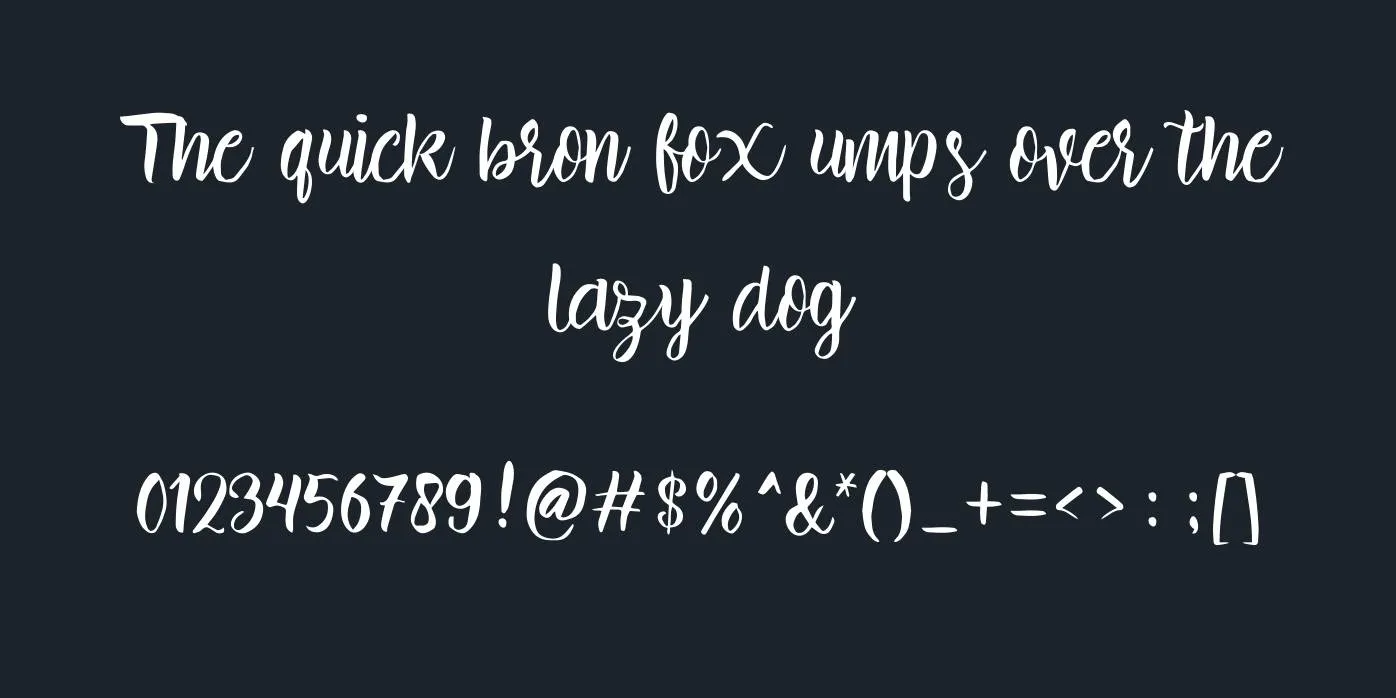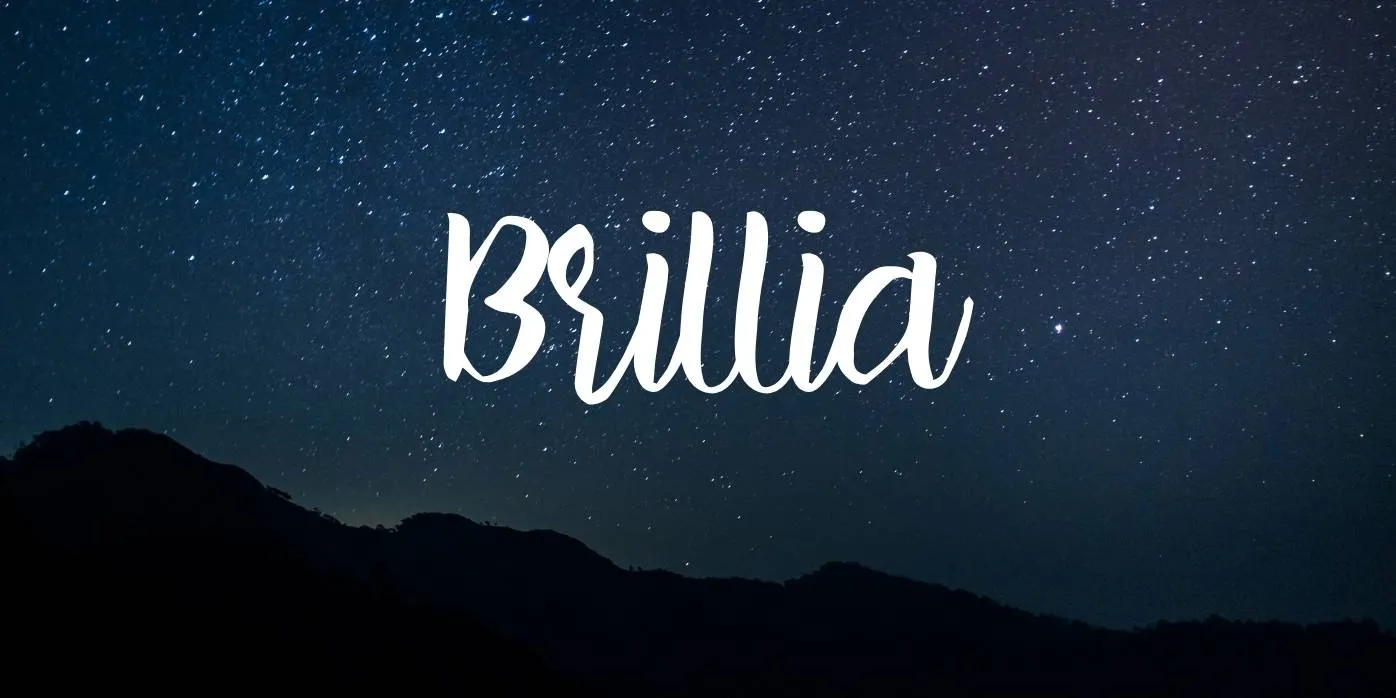
Brillia Font
The Brillia Font has a unique texture that belongs to the Script Font family. The popular Queentype foundry designed this typeface. The designer of this Script typeface worked in Queentype company. The main benefit of using this typeface is it is free for personal projects.
This typeface contains 300 glyphs which include swash, ligatures, and stylistic alternates. The files are present in both TTF and OTF formats. This typeface has unique numbers, uppercase letters, punctuation marks, characters, lowercase letters, glyphs, special symbols, and language support. It has only one style which is Brillia Regular.
Chelsea Olivia Font is one of the similar Fonts of the brillia typeface and is usually paired to give a pretty look to your logos and designs. Paris 1920 font can be paired with this texture for better styles.